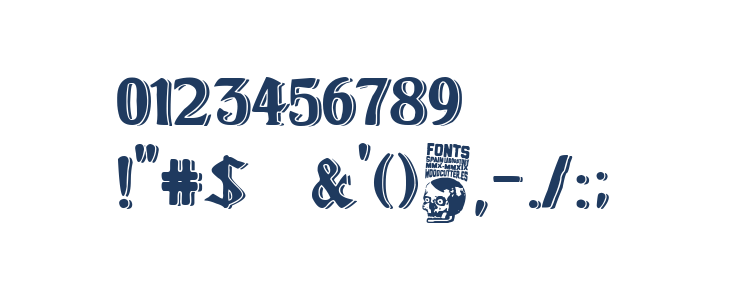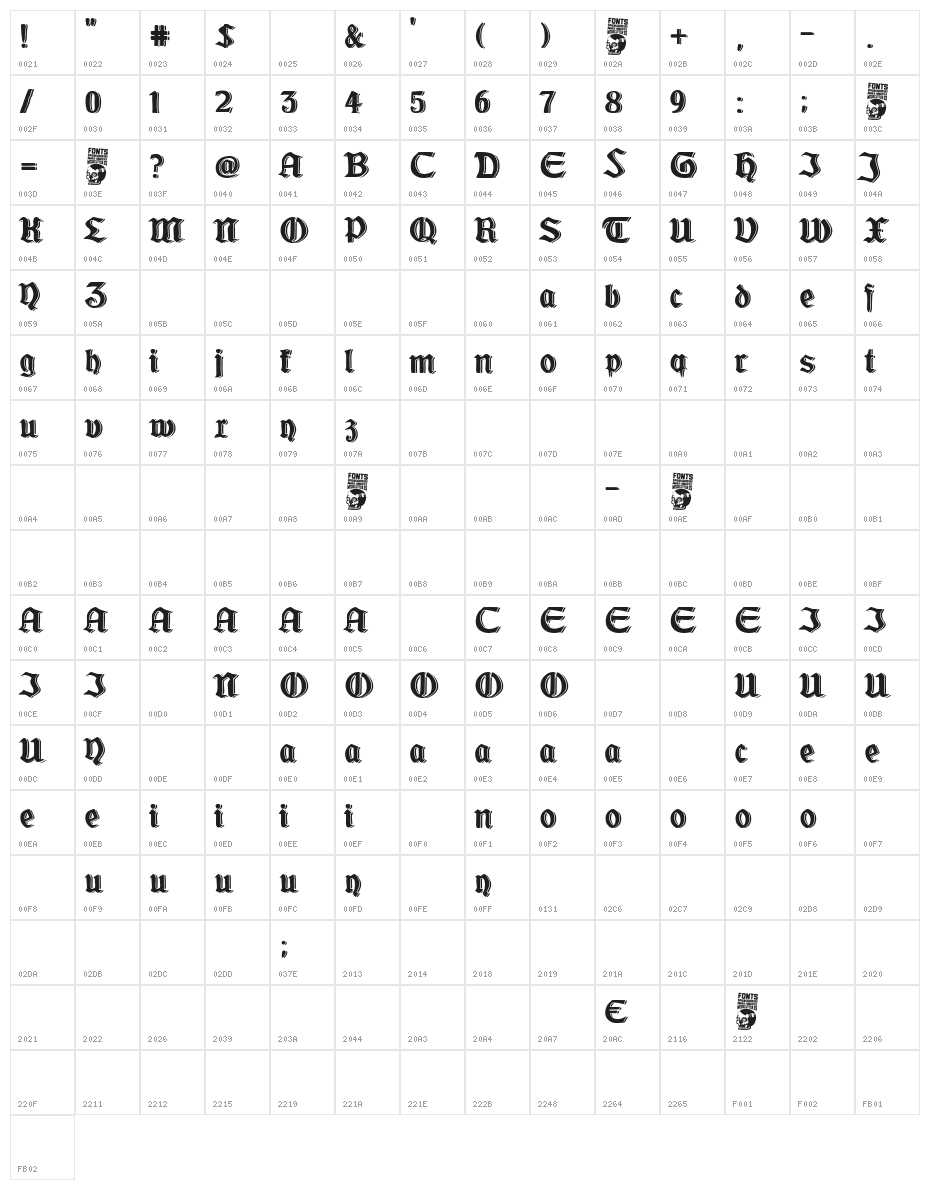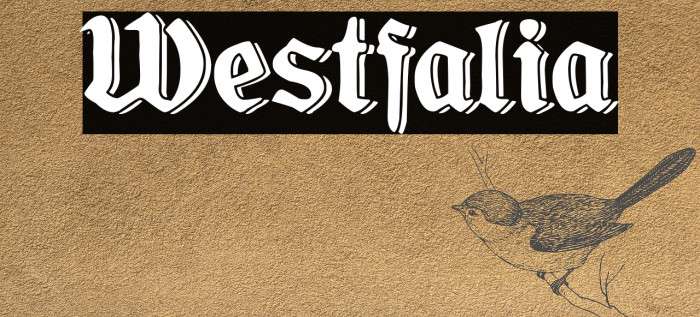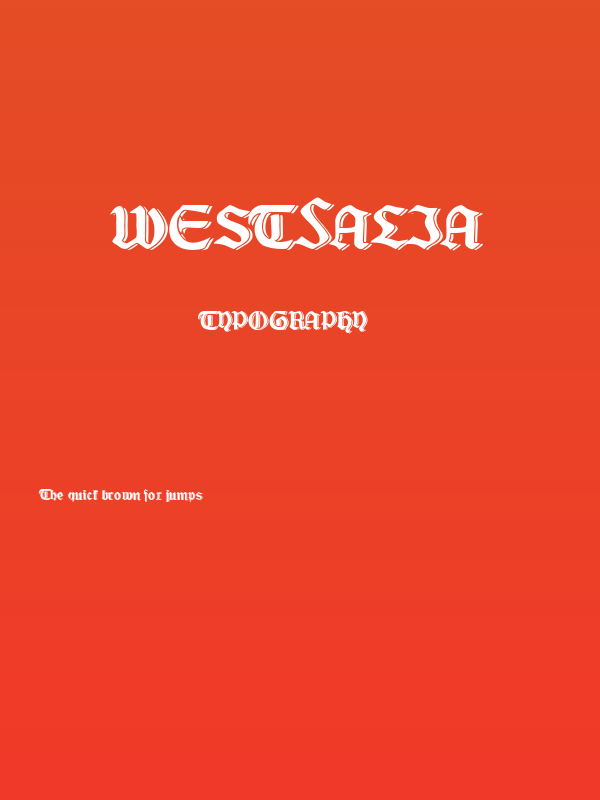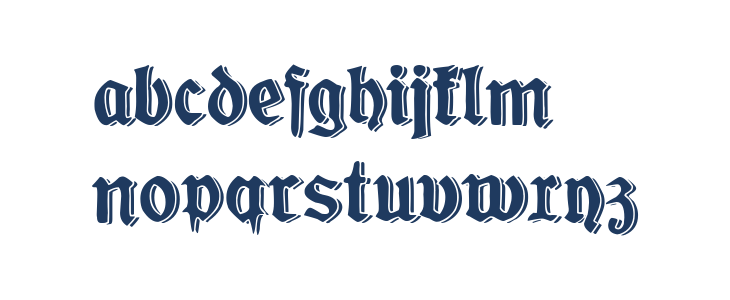
Westfalia Font
Westfalia Description
This font embodies a traditional blackletter style, reminiscent of medieval script with its intricate and ornate design. The characters are bold and angular, featuring sharp edges and dramatic strokes that create a sense of historical elegance. The uppercase and lowercase letters maintain a consistent style, with a strong emphasis on vertical lines and pointed serifs. The numerals and special characters are equally detailed, adding to the overall cohesive appearance. This font is ideal for projects that require a touch of classic sophistication and a nod to historical typography.
| Proposed Projects | Suitable for vintage-themed designs, historical documents, book covers, and decorative signage. |